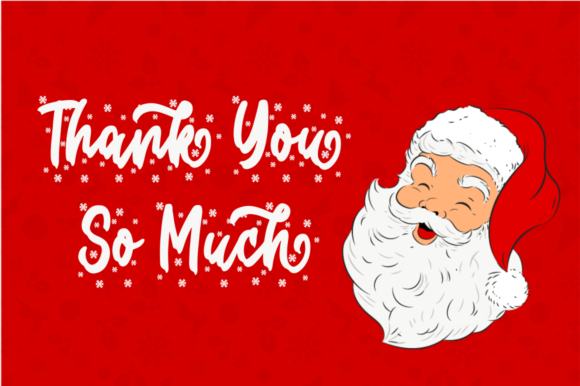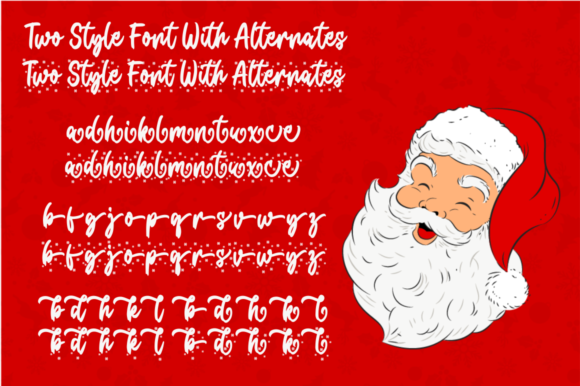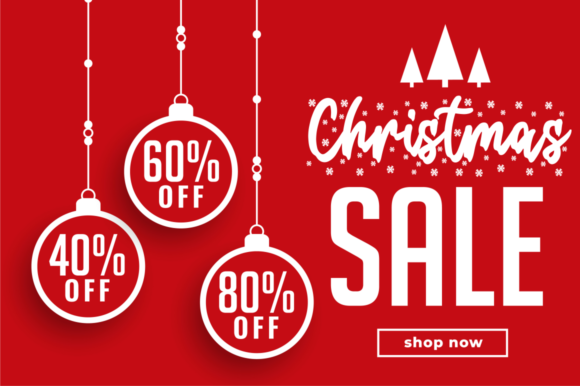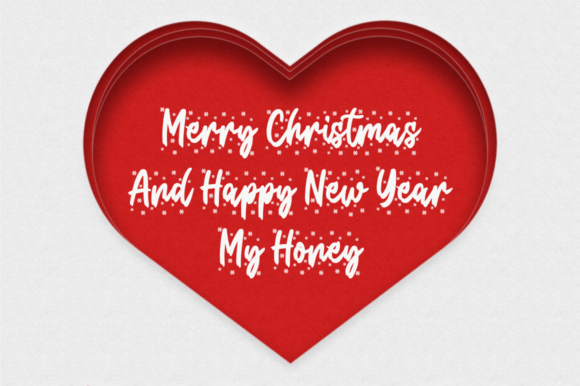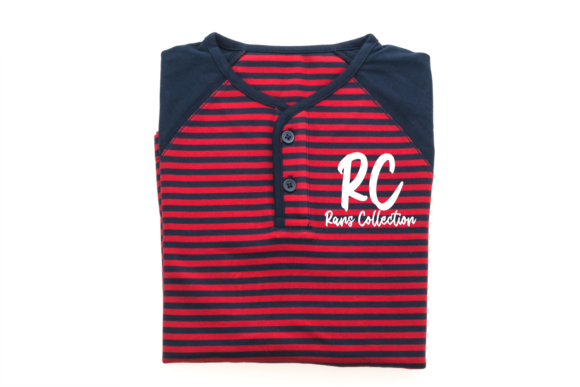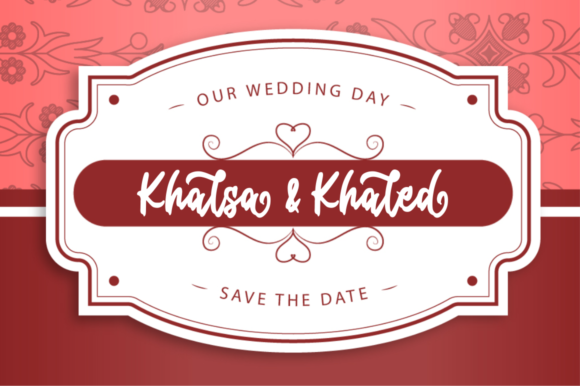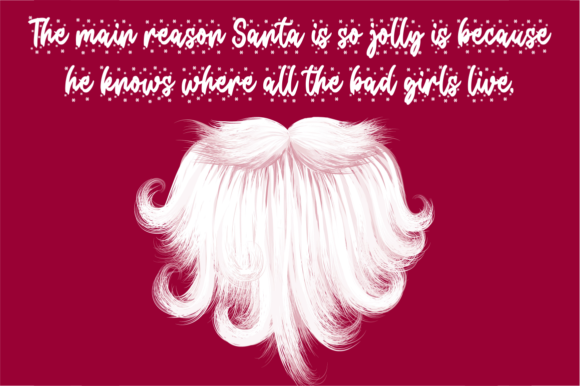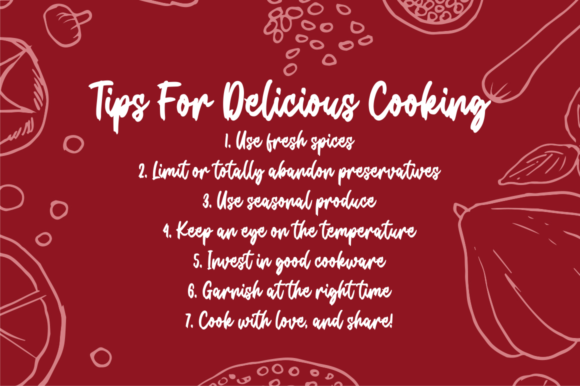
Christmas Present Font
About Christmas Present Font
Christmas Present is a fun handwritten font with a snowy effect. It is the perfect font for your Christmas-themed projects!